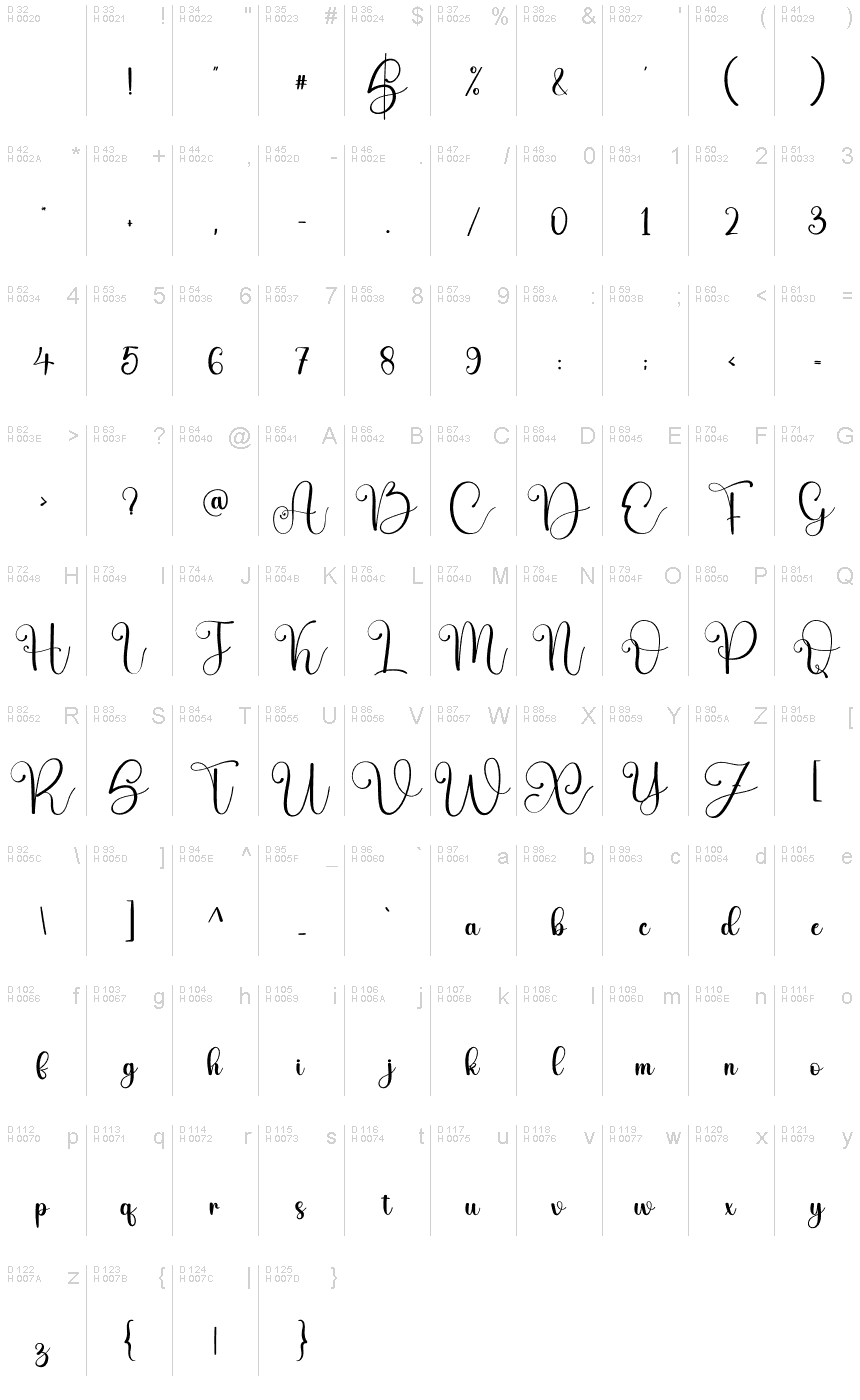
Christmas Vacation
Christmas Vacation, designed by Harlek Studio, is a captivating calligraphy font that adds elegance and charm to any project.
With its semi-light weight, this font is perfect for creating enchanting holiday-themed designs, such as Christmas cards, party invitations, and festive banners. Its flowing strokes and intricate details evoke a sense of warmth and joy, making it an ideal choice for crafting seasonal greetings or adding a touch of magic to winter-themed branding materials.
Let Christmas Vacation transform your projects into merry works of art that celebrate the spirit of the holiday season.